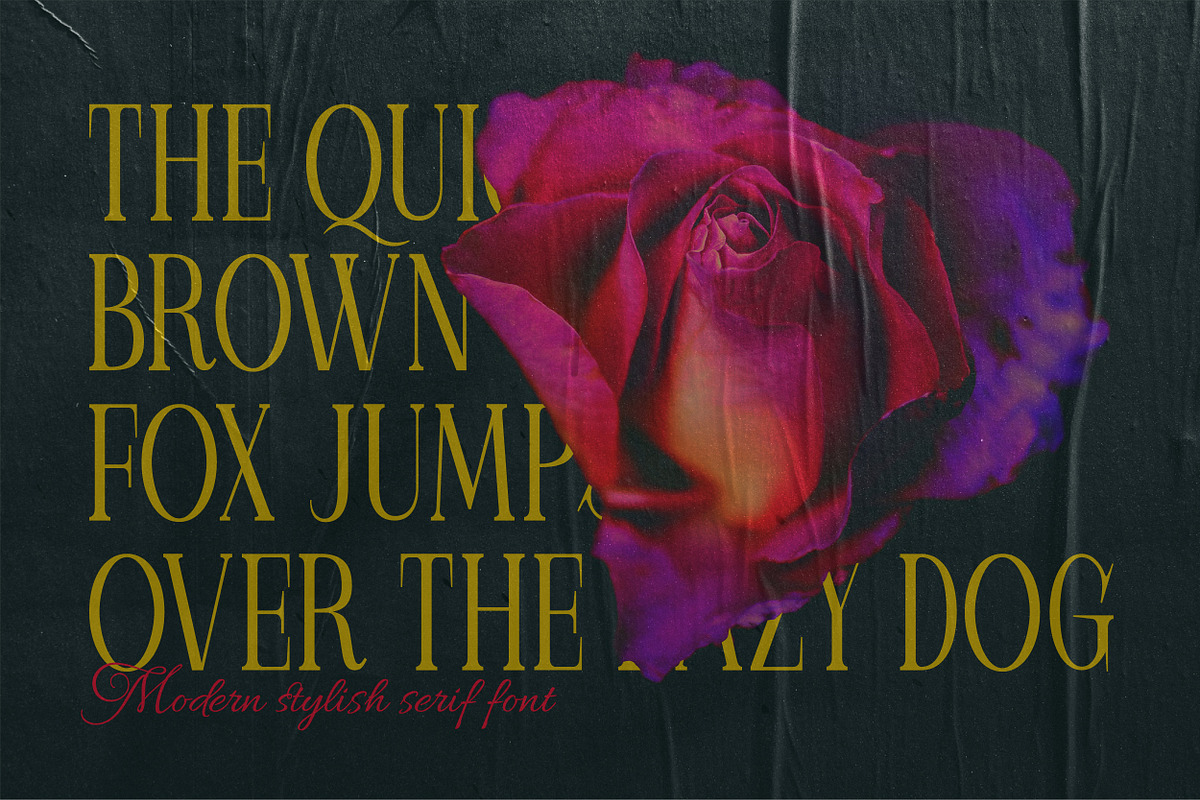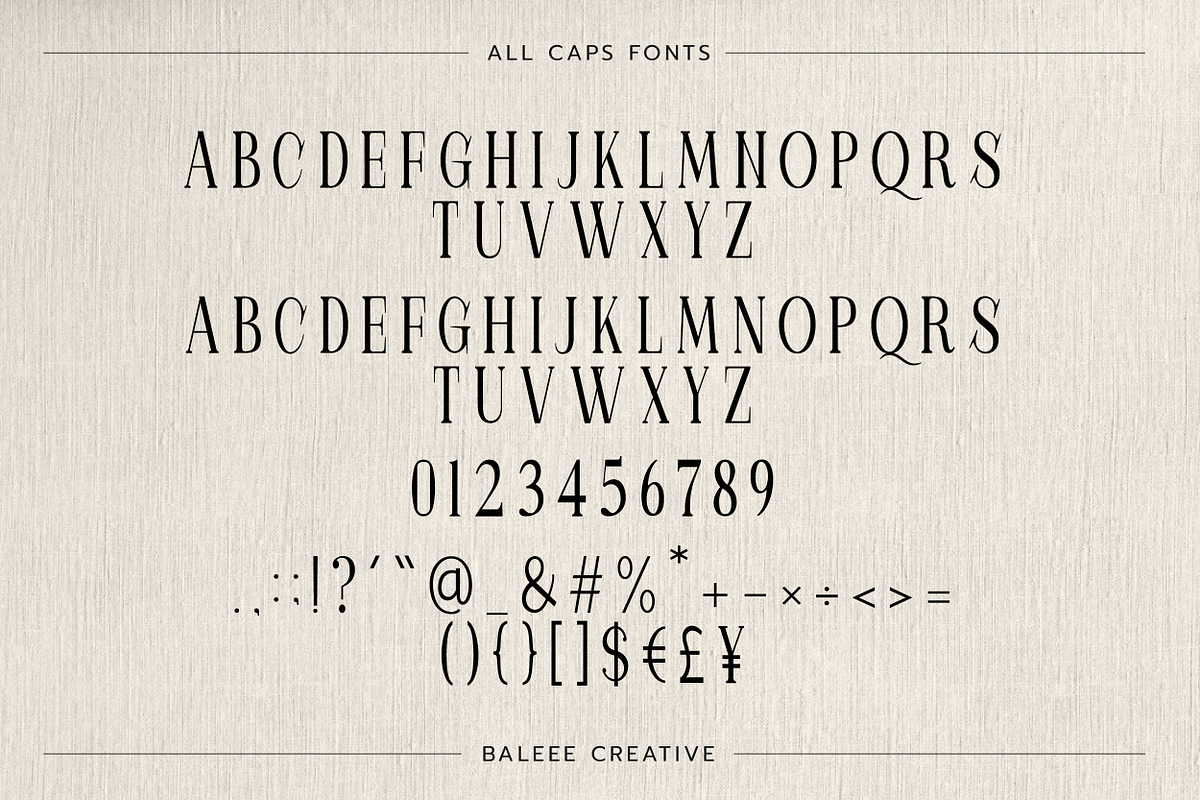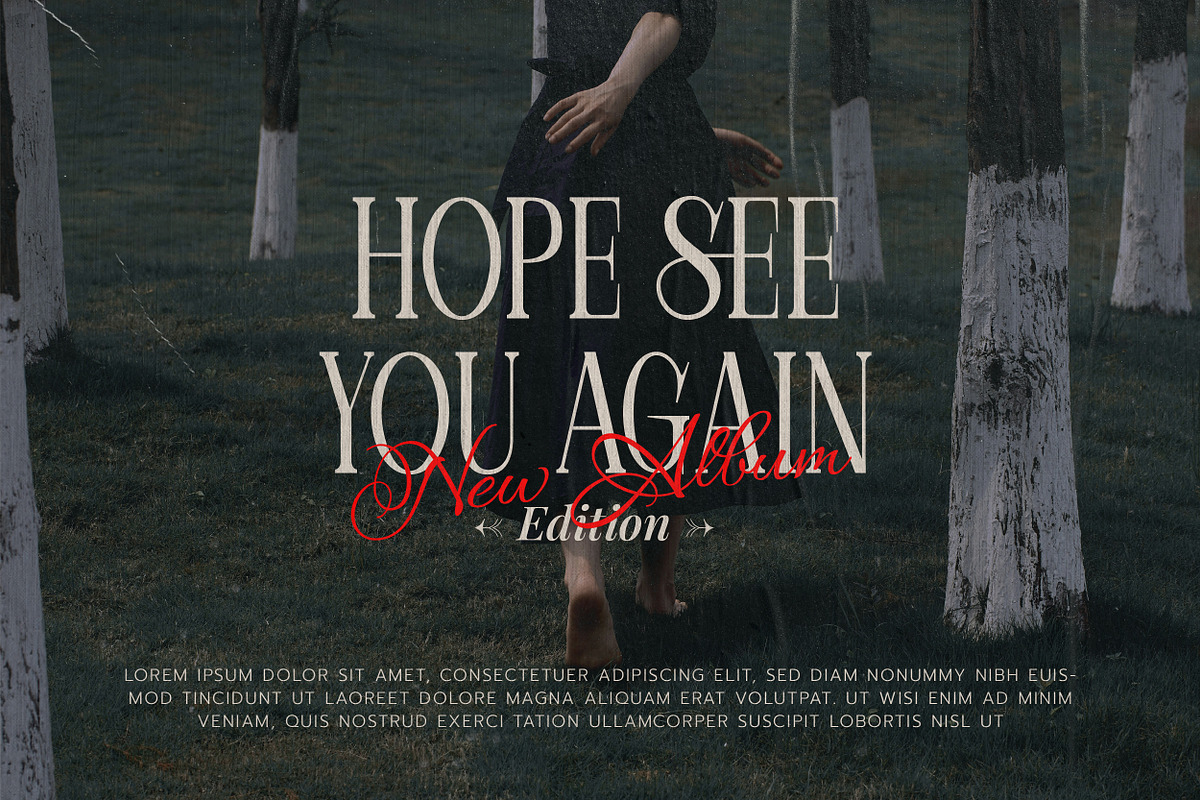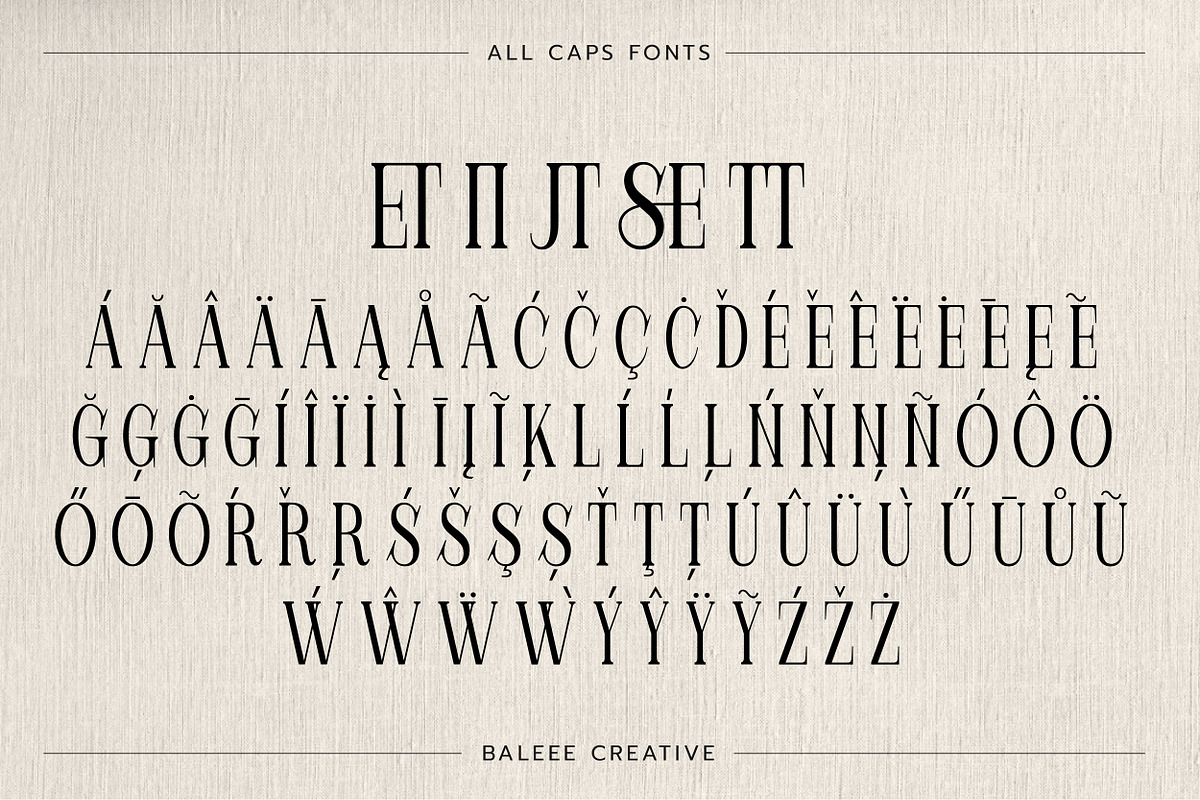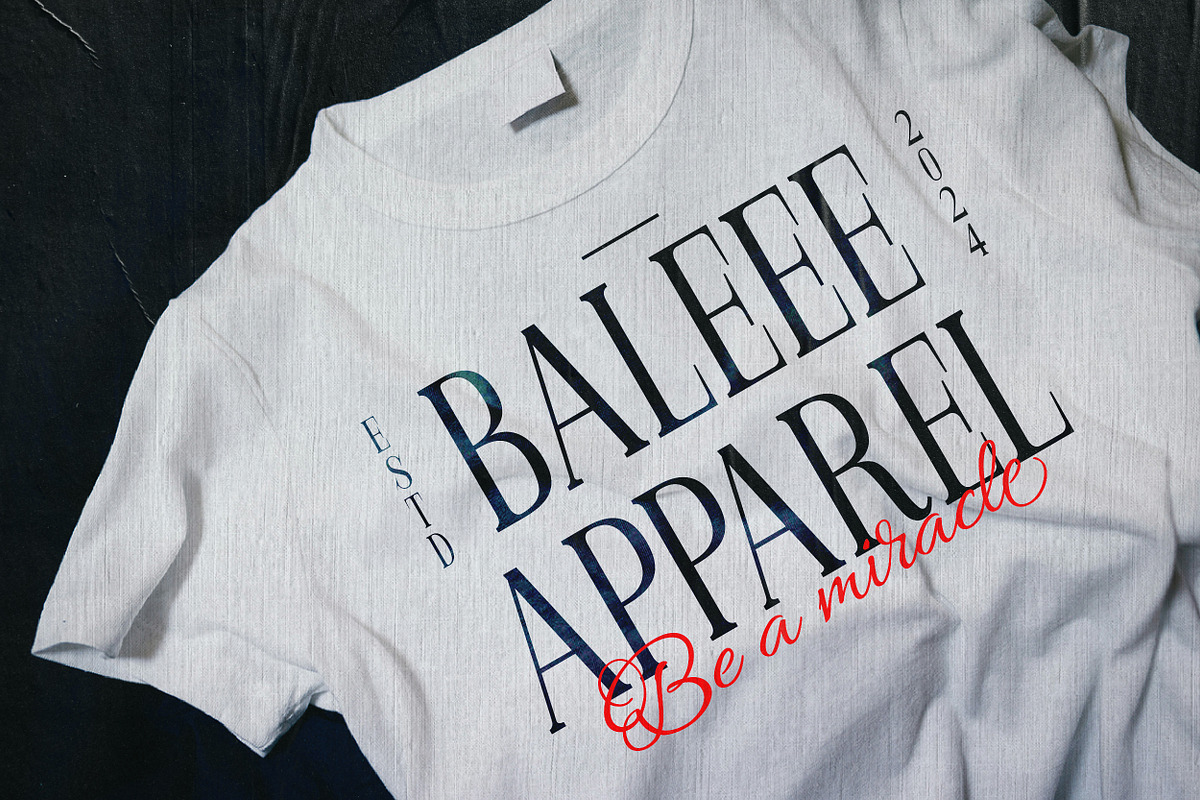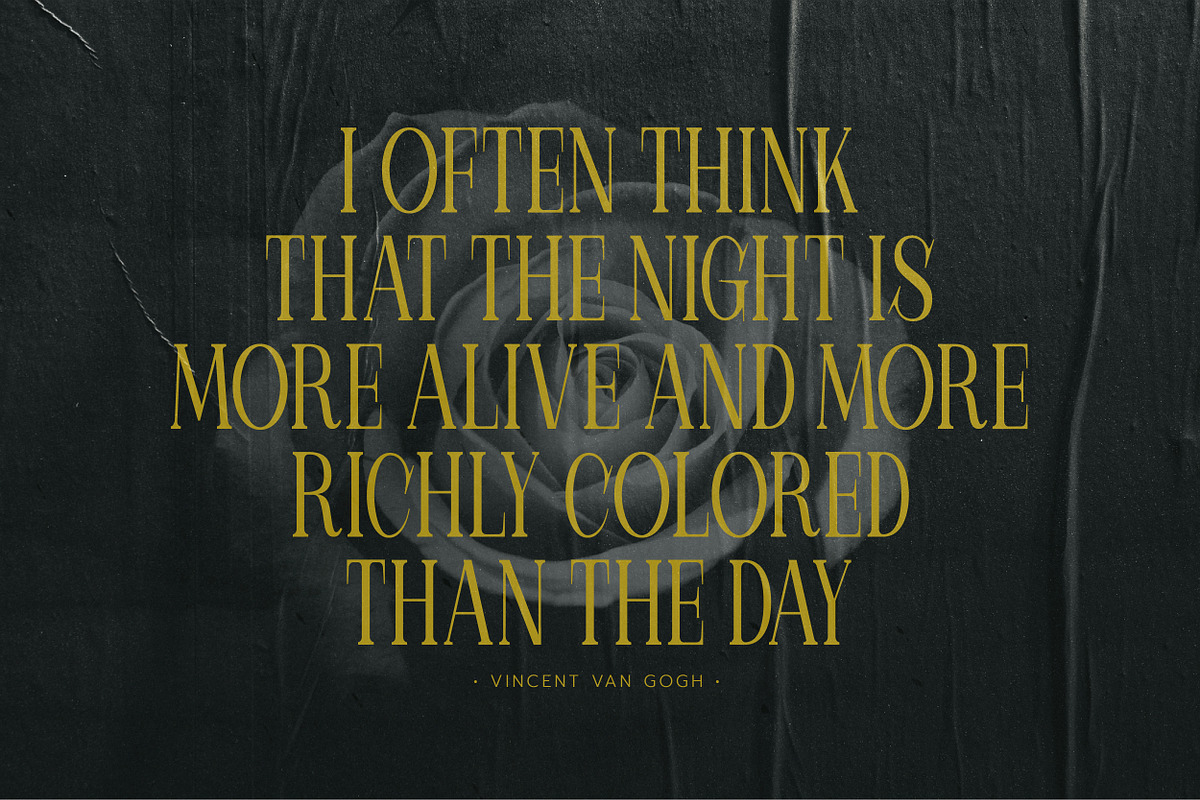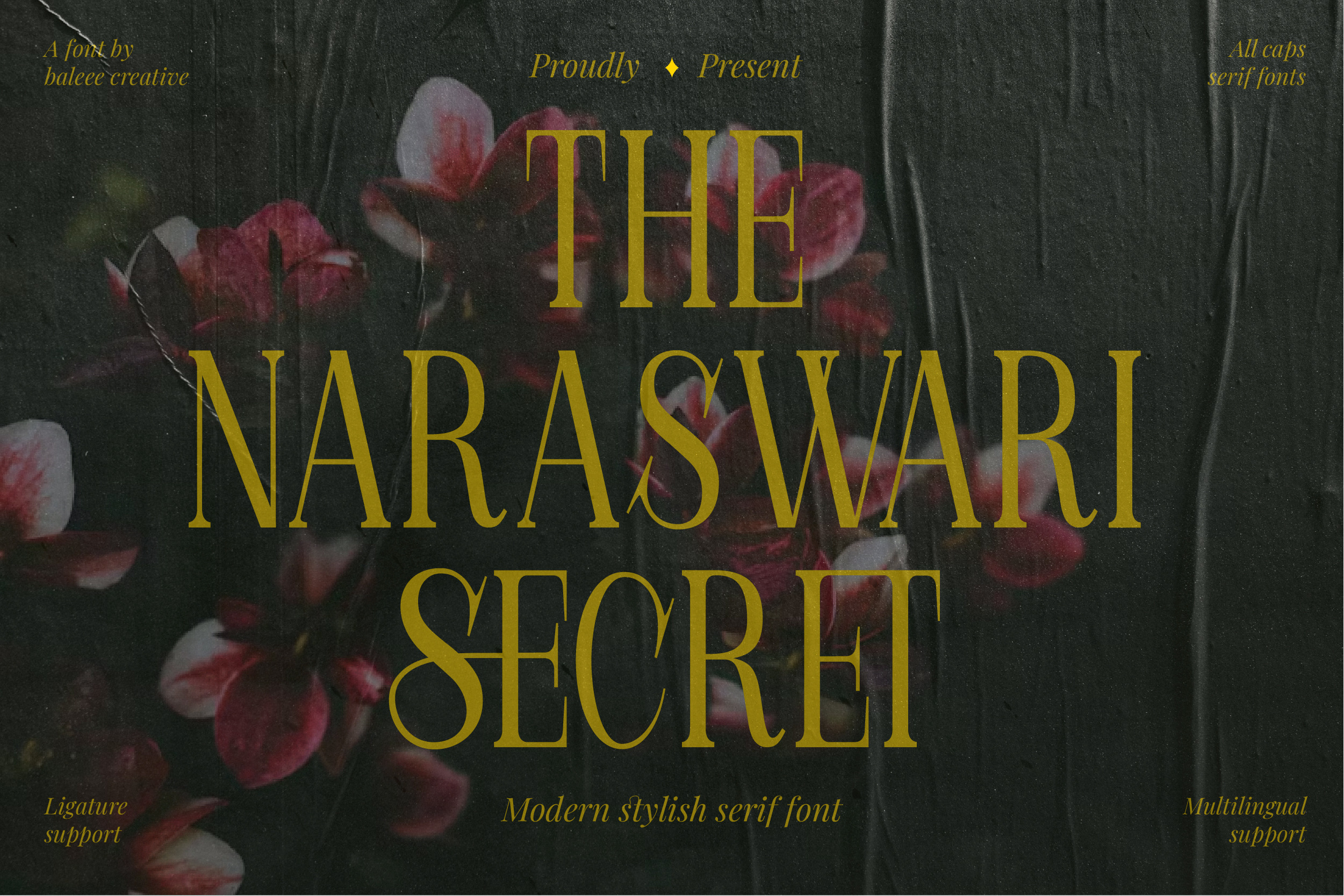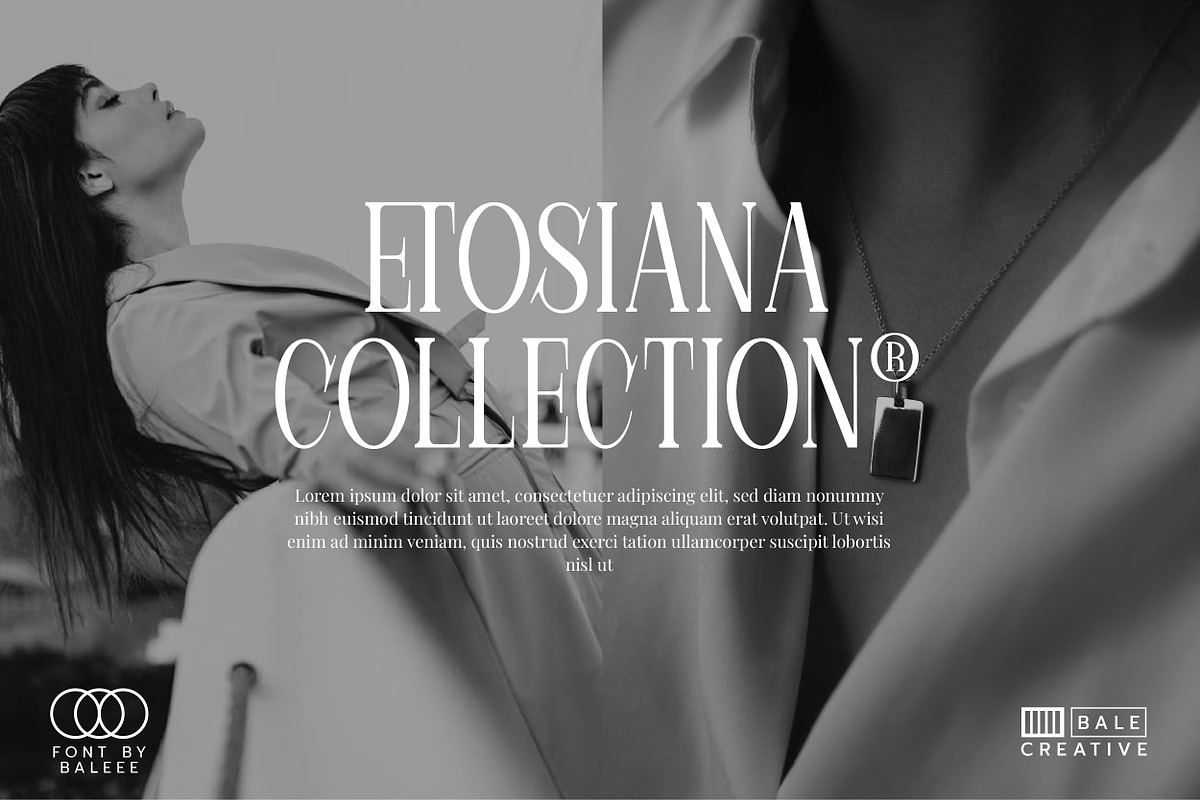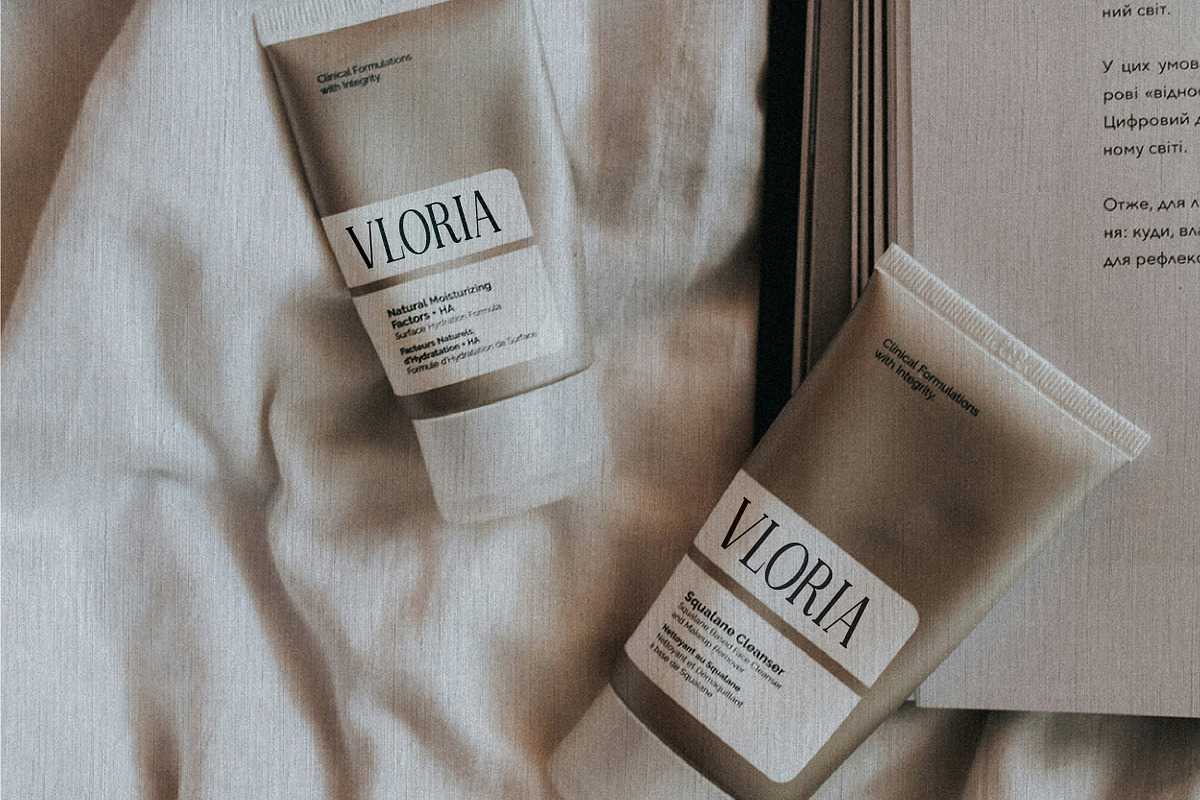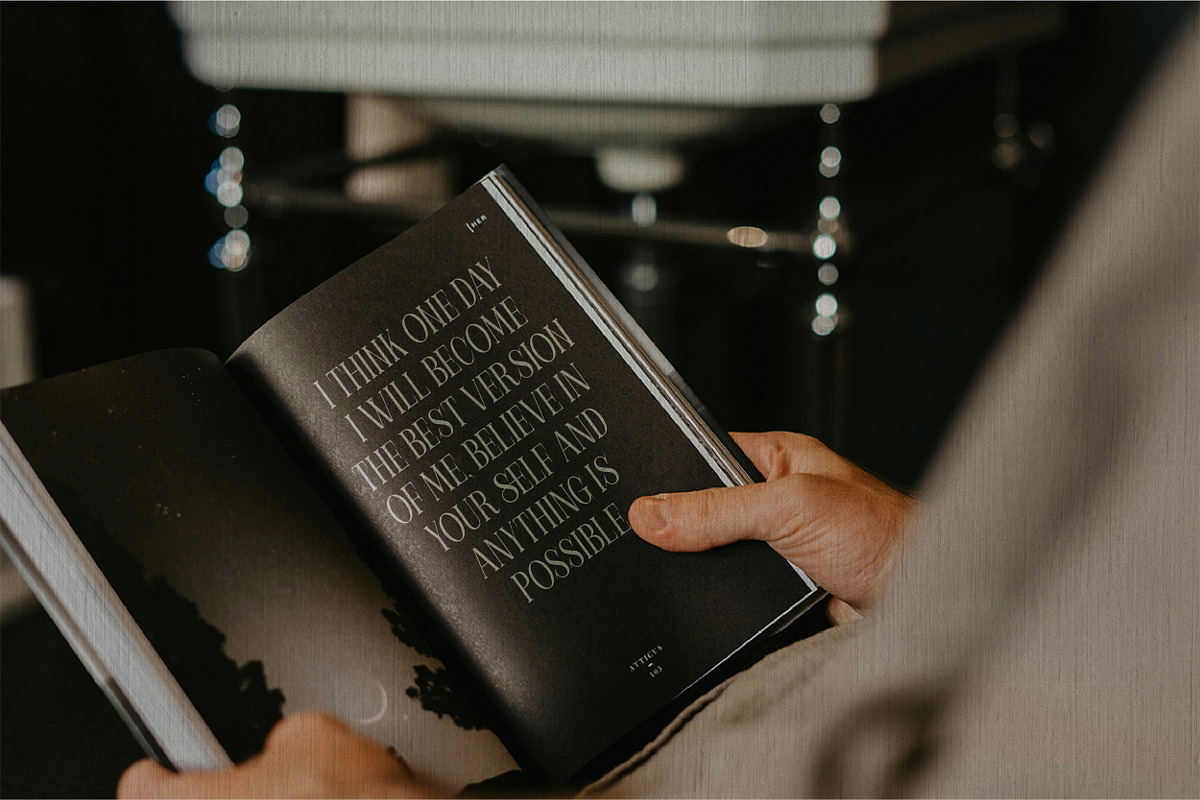
Naraswari - Vintage Serif Font
Introducing Naraswari - Vintage Serif Font
A unique vintage serif font with a modern font feel. Includes all caps font and ligatures to play with! This font has a unique look to the edges of the letters. This is how the font was created—to give it a distressed and authentic look!
Naraswari Font is perfect for: Jersey, logos, branding, wedding invitations, digital template, business cards, greeting cards, posters, magazines, social media, planner prints and websites.